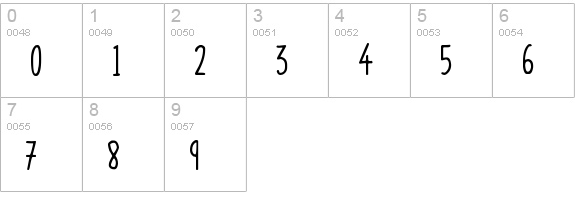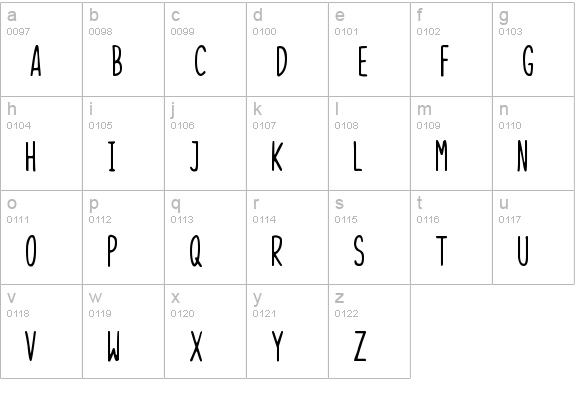
Skinny Things Font Details
Skinny Things is a donationware font in the Script > Handwritten category, designed by Darrell Flood. It has been downloaded 233 times and is available for Windows, Mac and Linux.
Introducing Skinny Things font - a sleek and modern typeface that exudes elegance and sophistication. With its slender and graceful letterforms, Skinny Things is perfect for adding a touch of class to any design project. Whether you're creating invitations, branding materials, or social media graphics, this font will effortlessly elevate your work to the next level.